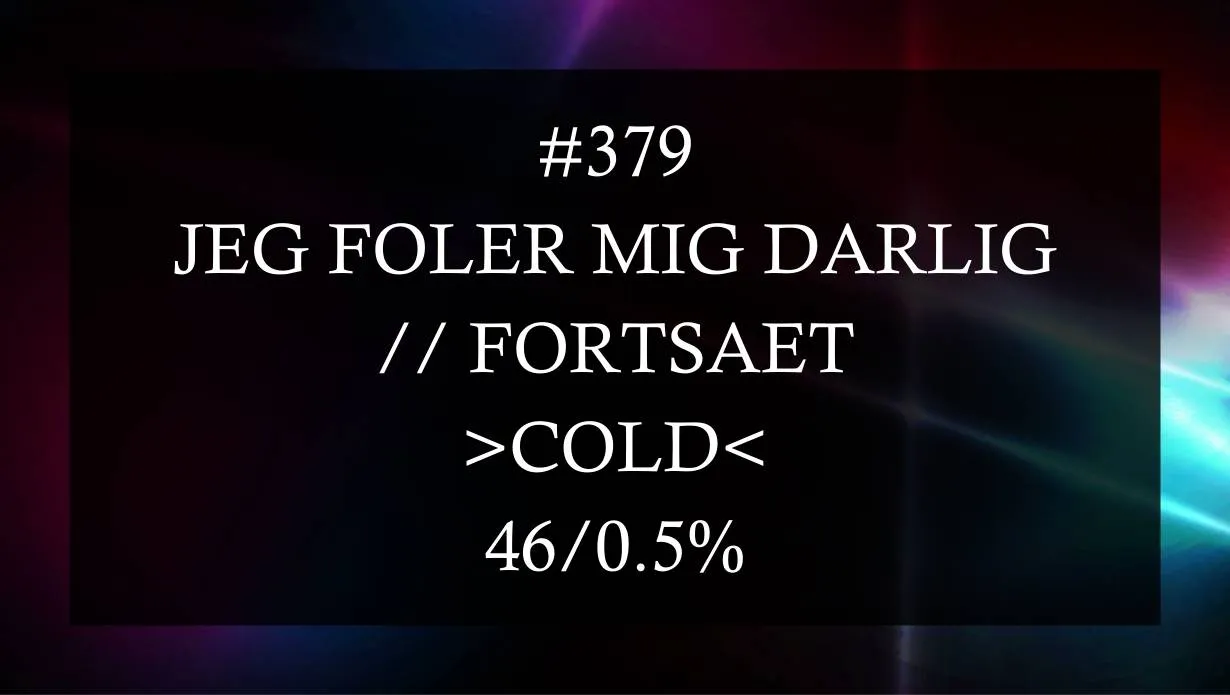
Calisto font is a typeface that was developed in the early 20th century and has since become one of the most popular fonts for both print and digital use. Originally designed as a display font.
This font was created by London-based type designer Andrew Johnson in 2006. Johnson drew inspiration from a number of classic typefaces, including Bodoni and Caslon, to create a unique new design that would work well for both headlines and body text. it has a paired personality with collegiate font.
- Calisto Regular
- Calisto Pro Italic
- Calisto Pro Bold
- Calisto Pro Bold Italic
- Calisto Std Regular
- Calisto Std Italic
| Designer | Andrew Johnson |
| Style | Serif |